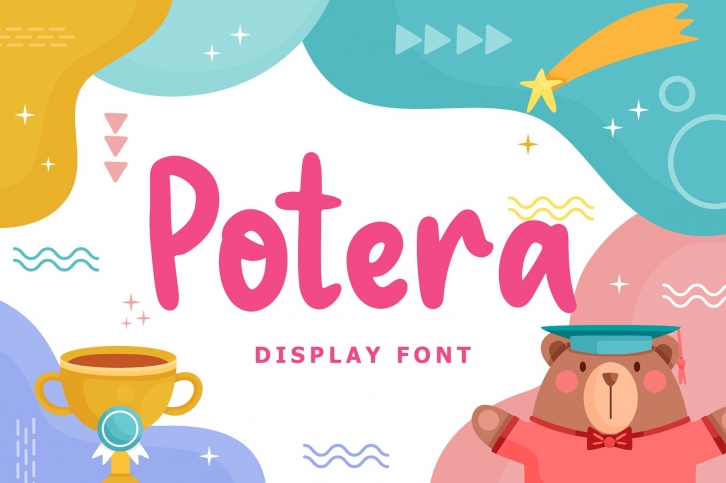
Potera Display Font Download
Potera Display is a gorgeous font that was realeased on September 21, 2020. The font can be used in many style contexts and design environments. Perfect for invitations, magazines, websites, logos, and more! It was designed by Formatika Studio and the file size is 11.36 MB. Thanks for checking out this font!